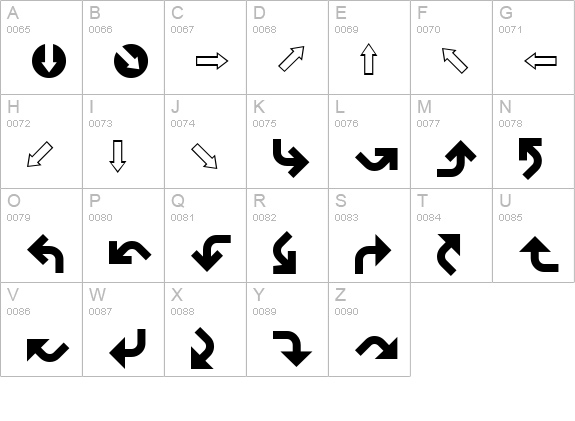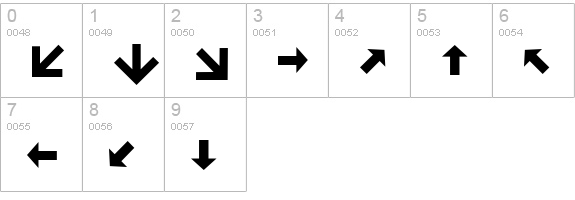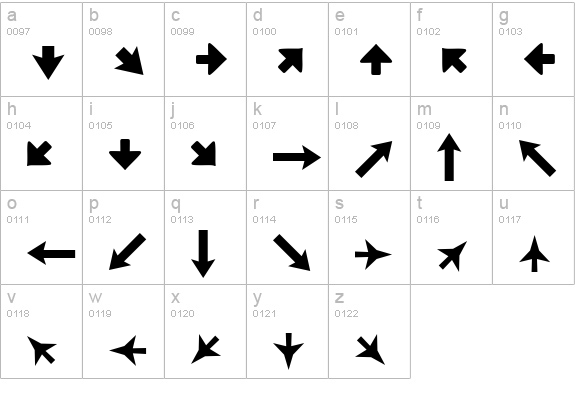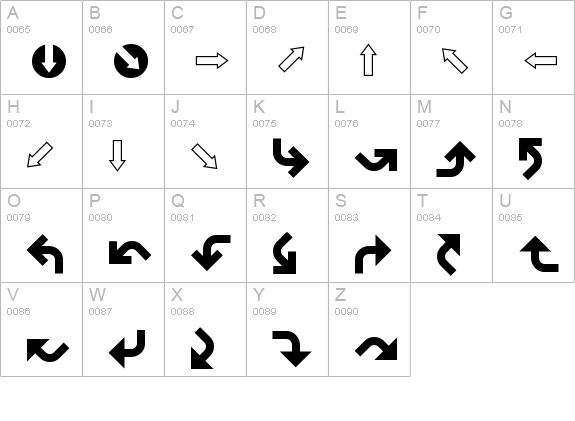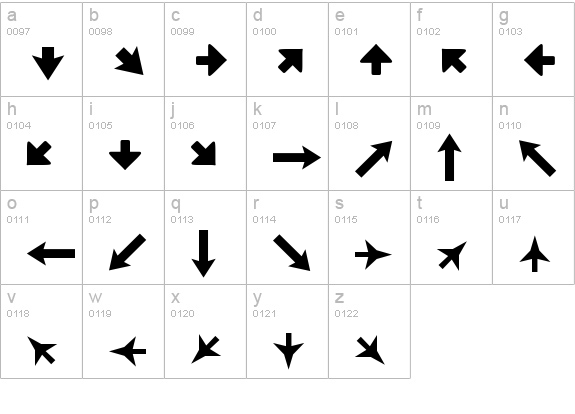
XIngyArrows Font Details
XIngyArrows font is a stylish and modern typeface that is perfect for adding a unique touch to your designs. This versatile font features a collection of intricate arrow designs that can be used to enhance various projects such as logos, posters, invitations, and more. The XIngyArrows font is available for free download at FontsMarket.com, making it easily accessible for anyone looking to incorporate eye-catching arrows into their designs. Whether you're a graphic designer, web developer, or DIY enthusiast, XIngyArrows font is a must-have addition to your font collection. Download it today and let your creativity soar with this dynamic and visually appealing typeface.